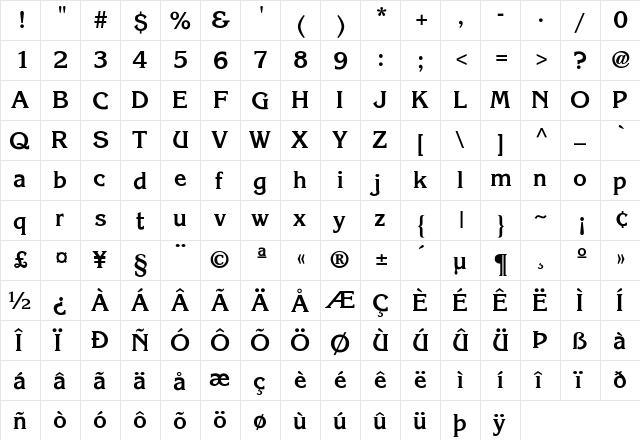
RRLight Bold Regular
Design Context for RRLight Bold Typeface
RRLight Bold takes a measured approach to typography — its balanced proportions and neutral character make it a reliable workhorse for both digital and print work. Its bold stroke weight gives it real presence on the page.